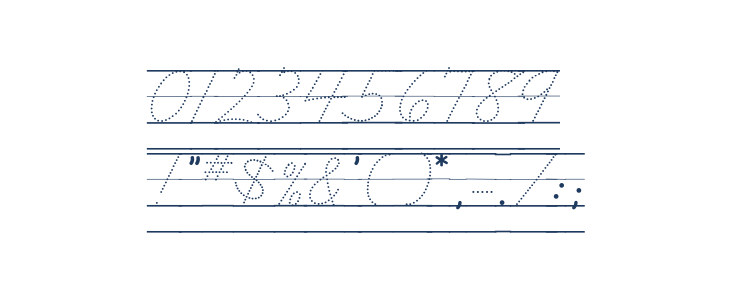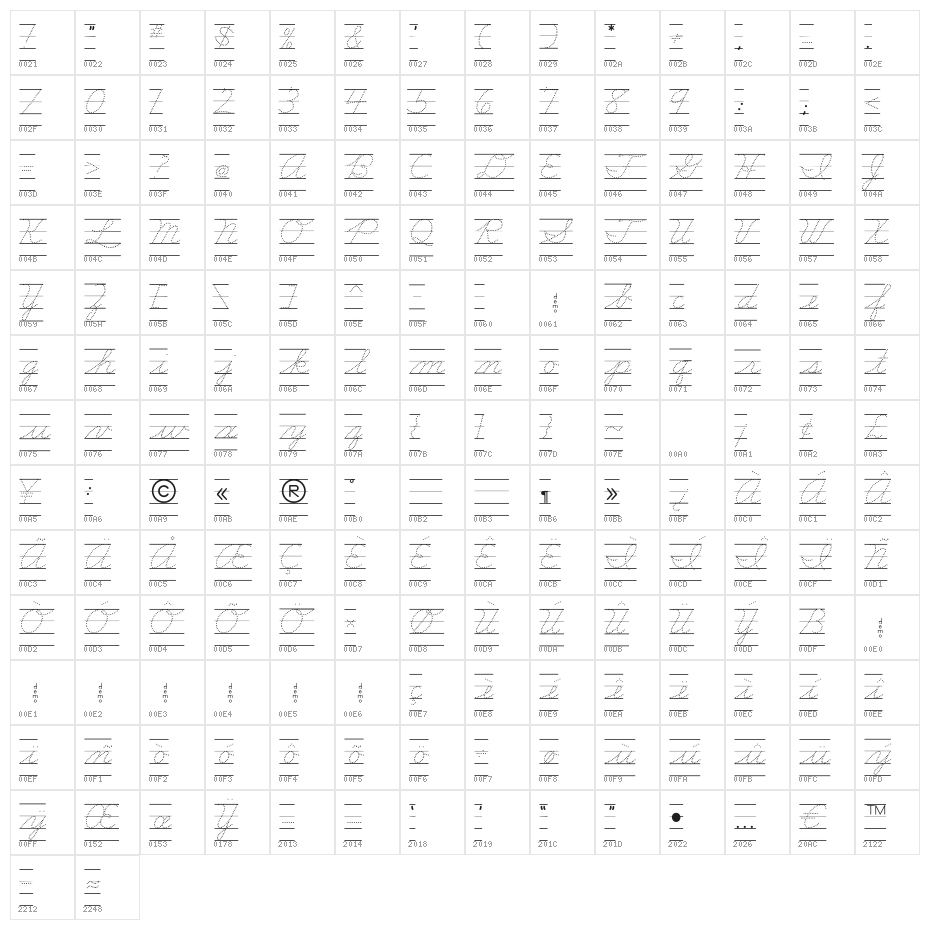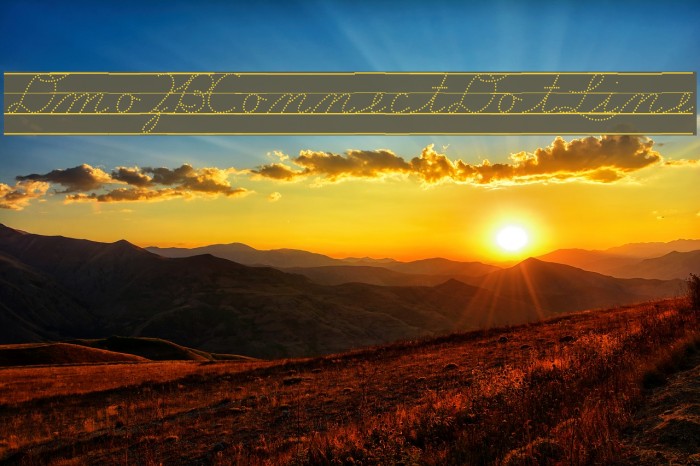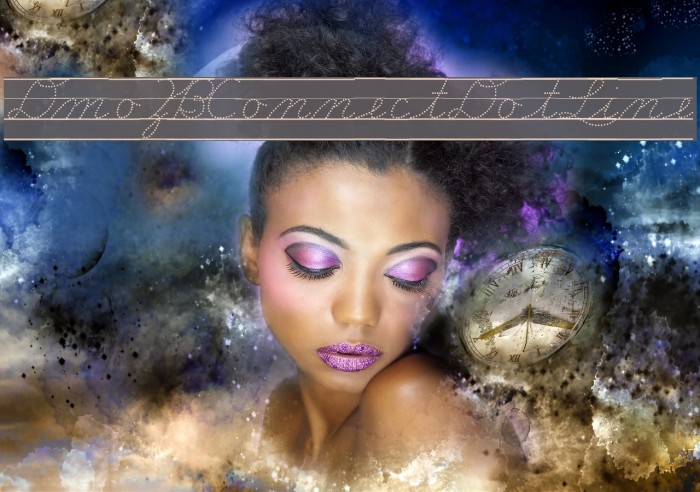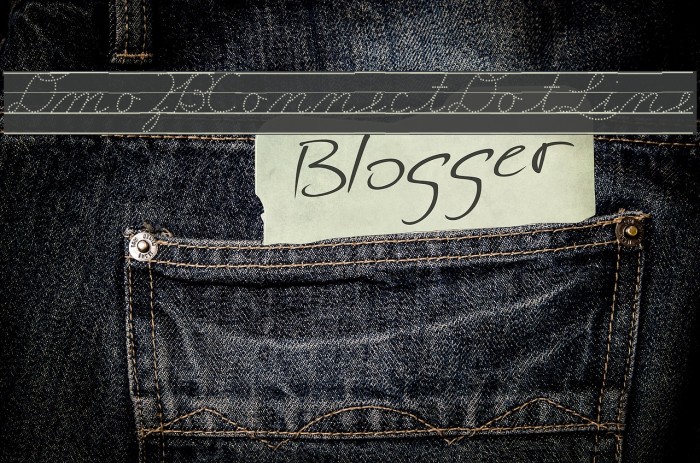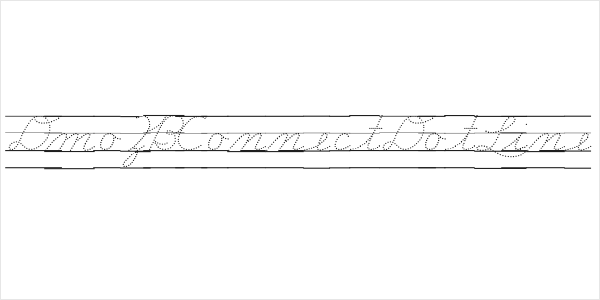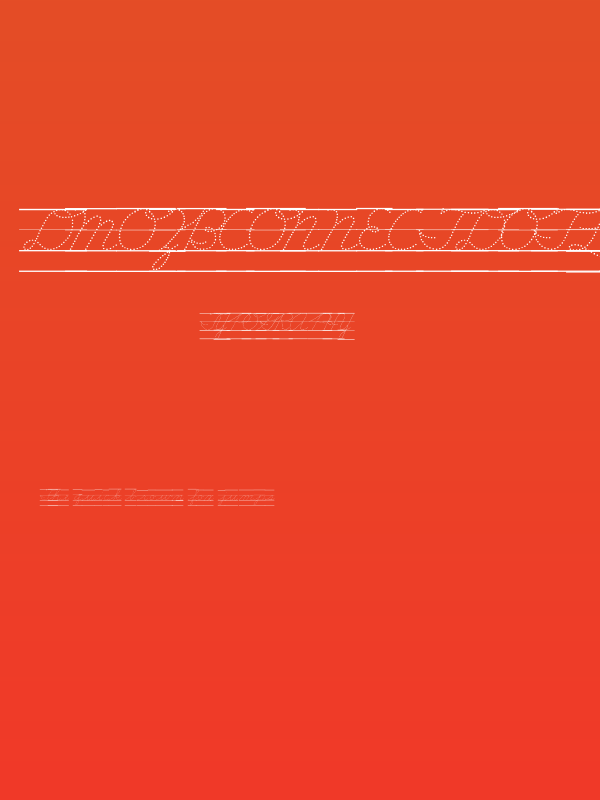
DmoZBConnectDotLine Font
DmoZBConnectDotLine Description
This font features a unique dotted line style that mimics the appearance of handwriting practice sheets. Each character is composed of small dots that form the outlines of letters and numbers, creating a playful and educational aesthetic. The uppercase and lowercase letters are designed with a cursive flair, maintaining a consistent flow and connection between characters. The numbers and special characters follow the same dotted pattern, ensuring uniformity across the entire set. This font is ideal for educational materials, particularly for teaching handwriting skills to children, as it provides a clear guide for tracing and learning letter formation.
| Overall Style | Educational, Playful |
| Use Case | Educational materials, Handwriting practice |
| Proposed Projects | Perfect for educational materials, children's books, handwriting practice sheets, and playful design projects. |